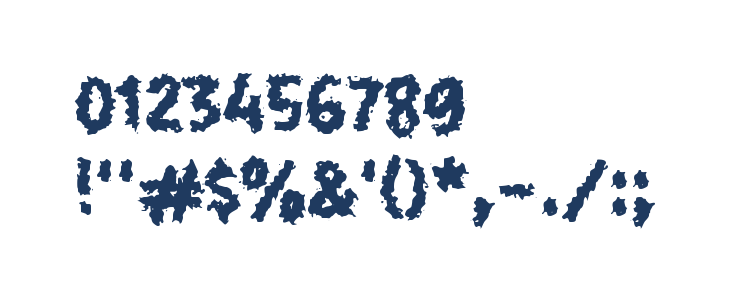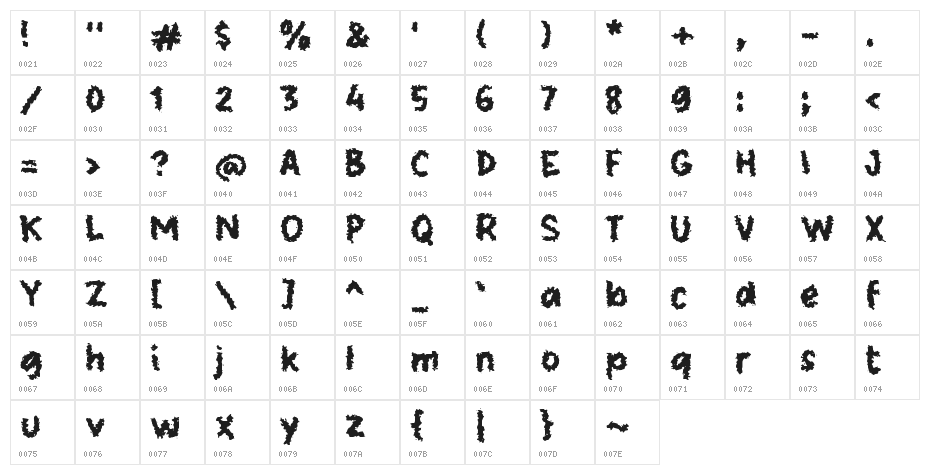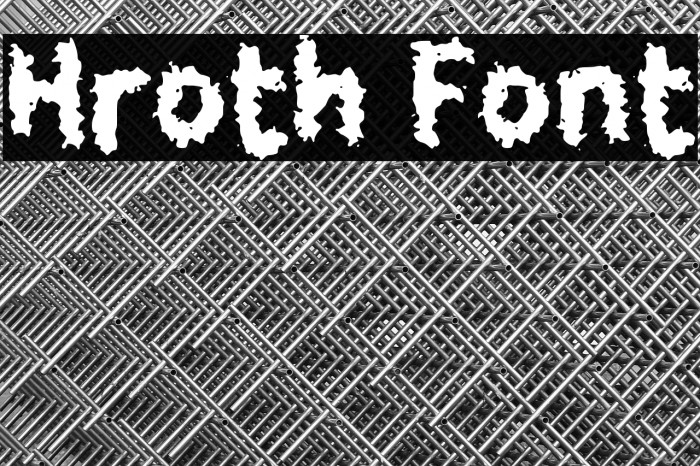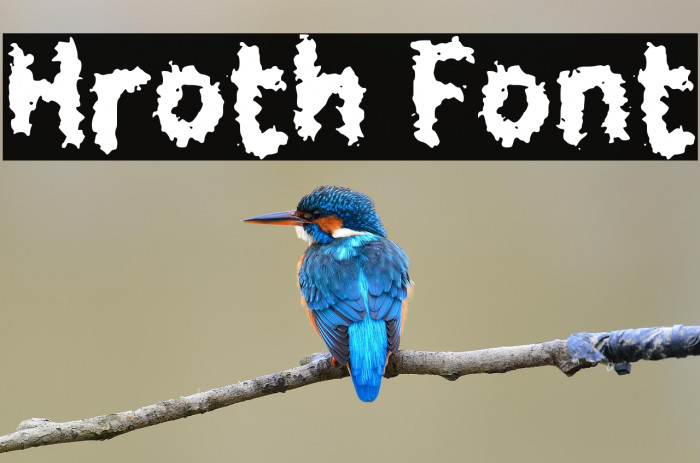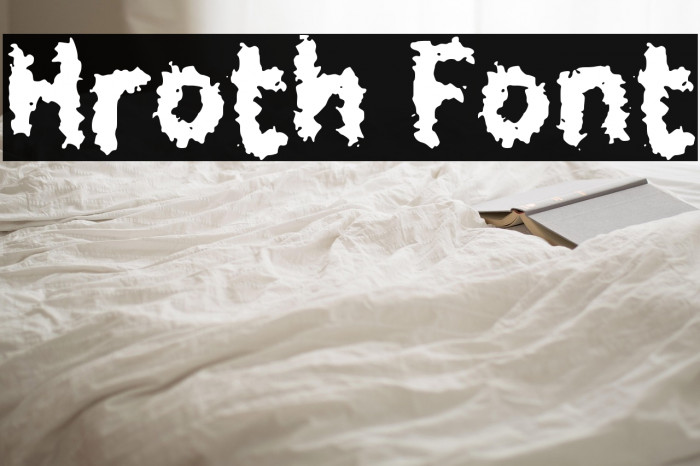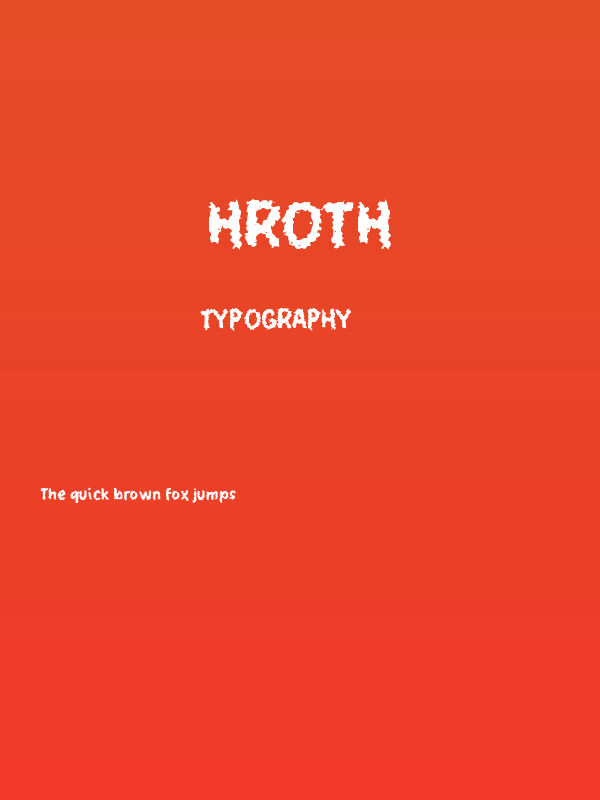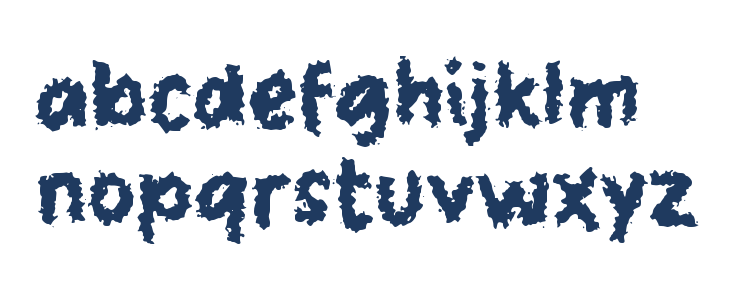
Hroth Font
Hroth Description
This font features a bold and rugged design, characterized by its rough, textured edges that give it a distressed and organic appearance. The letters are thick and substantial, with an uneven surface that suggests a hand-crafted or weathered look. This style is reminiscent of grunge or urban art, making it stand out with its unique and artistic flair. The uppercase and lowercase letters maintain a consistent style, while the numerals and special characters complement the overall aesthetic. This font is ideal for projects that require a bold statement or an edgy, unconventional look.
| Use Case | Headlines, Posters, Artistic projects |
| Proposed Projects | Perfect for album covers, posters, street art designs, or any project needing a bold, artistic touch. |